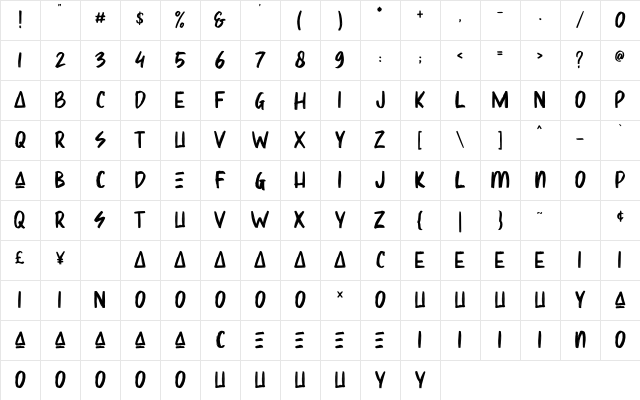
Sharoe Regular Free Font
Sharoe Regular
Designer: Sigit Dwipa Raharjo
Design Context for Sharoe
Sharoe is a composed and adaptable typeface that performs quietly and consistently across a wide range of design contexts.
Pro Tip: Use Sharoe in both headline and body roles to test its range before committing to a single application.